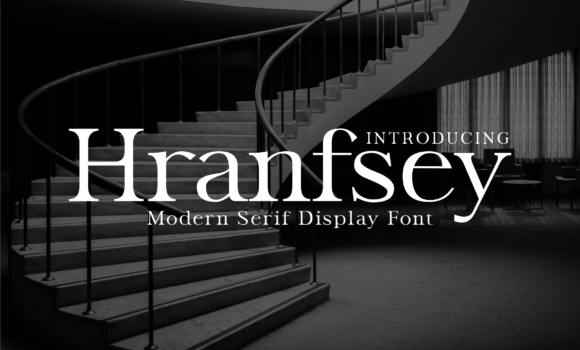
hranfsey
Hranfsey Font – Free Download Introduction to Hranfsey Font Introducing Hranfsey, a modern serif display font that exudes timeless elegance and strength. 📸 Preview Gallery 6 images 📌 Product Name Hranfsey Font 👤 Author zamjump 📂 Category Explore ⬇️ Download